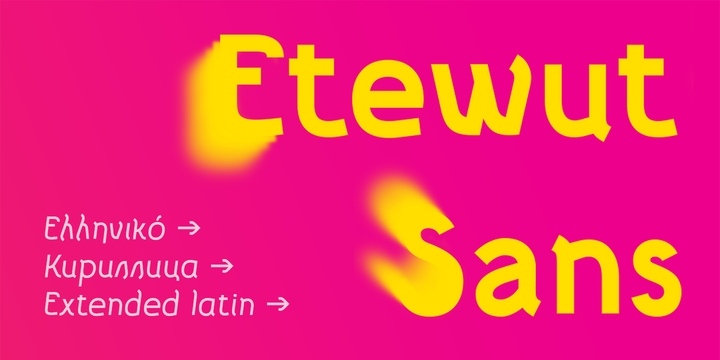
Etewut Sans Font
Etewut Sans Font is perfect for modern corporate branding, digital interface design, contemporary publications, tech startup communications, minimalist packaging, and clean web design projects. This versatile typeface excels in mobile applications, progressive marketing materials, sleek presentations, and any application where modern simplicity and optimal readability create seamless user experiences.
What makes Etewut Sans Font so exciting is its exceptional balance of geometric precision and humanist warmth that makes it incredibly versatile for contemporary design needs. The font features clean, unadorned letterforms with subtle curves that enhance readability while maintaining a distinctive modern character. Its neutral yet friendly appearance makes it ideal for brands seeking to communicate innovation, clarity, and approachability across all platforms.
Etewut Sans Font comes in a comprehensive family including Thin, Light, Regular, Medium, Bold, and Black weights. Each style features complete uppercase and lowercase character sets, modern punctuation, optimized numerals, and technical symbols. The font family also includes condensed and extended variants, italic styles, and alternate characters that provide designers with extensive flexibility for complex digital and print applications.
The font's modern sophistication makes it particularly effective for technology companies, digital agencies, progressive brands, and forward-thinking organizations. Its exceptional legibility ensures that Etewut Sans Font performs flawlessly across all screen sizes and print applications while maintaining its distinctive contemporary character. The font's ability to adapt seamlessly to any design context while preserving clarity and personality makes it an essential tool for modern communication needs in our increasingly digital world.